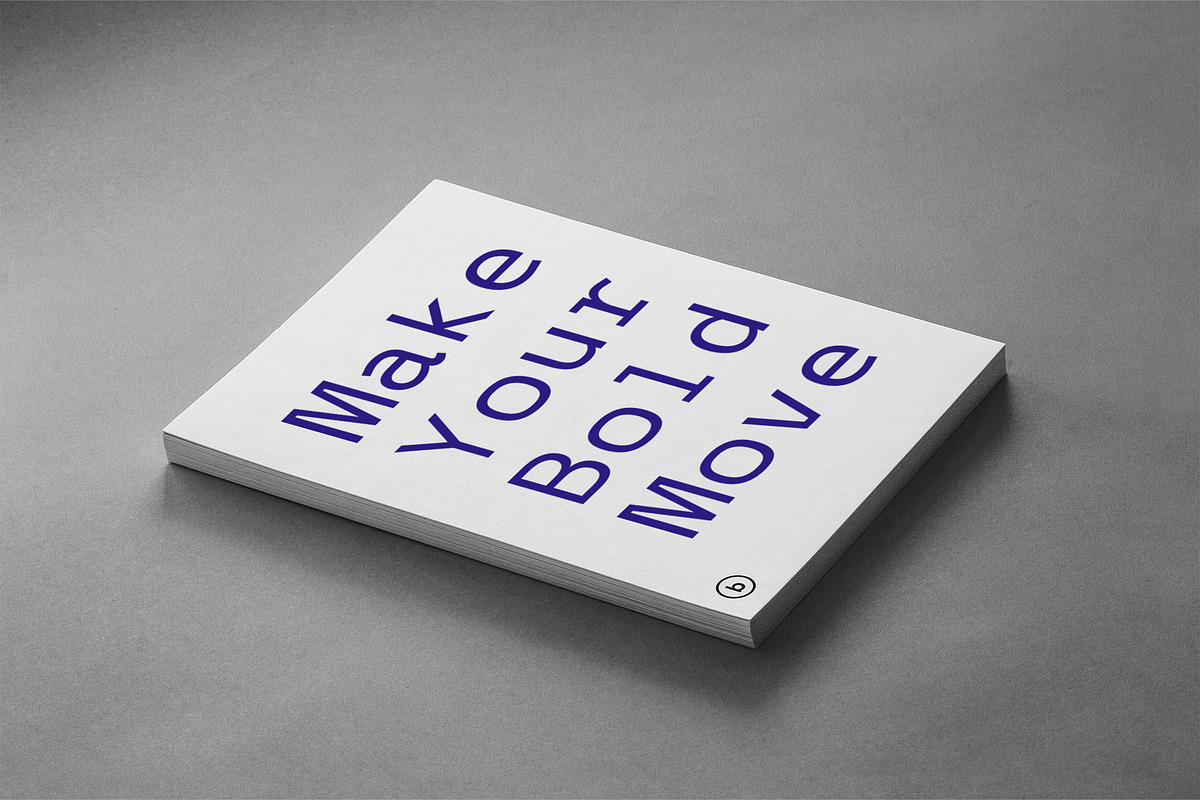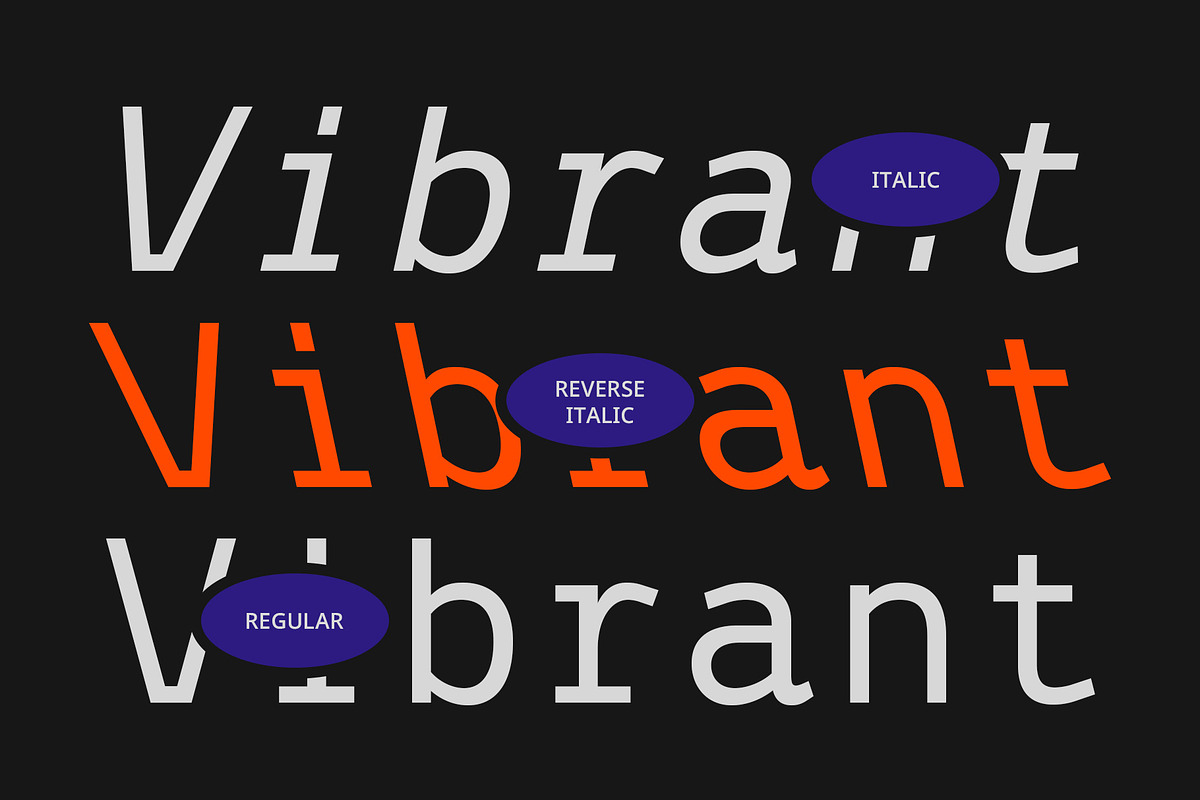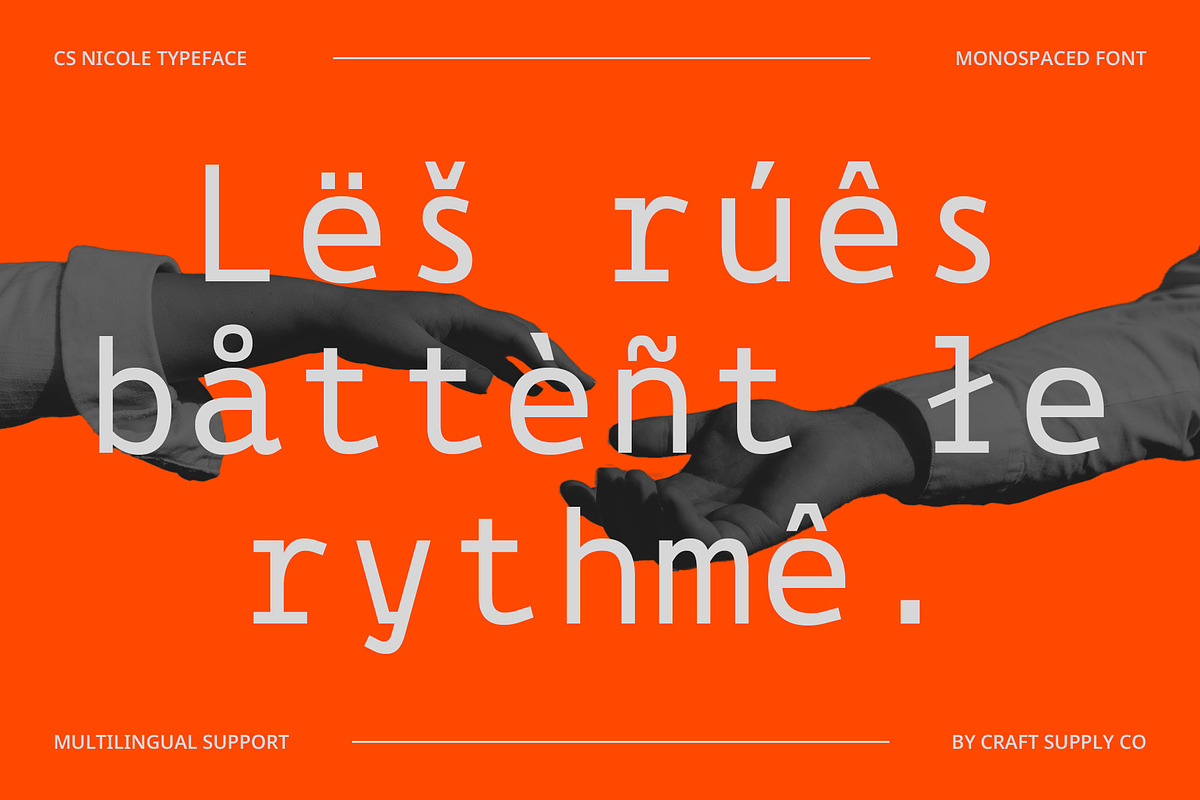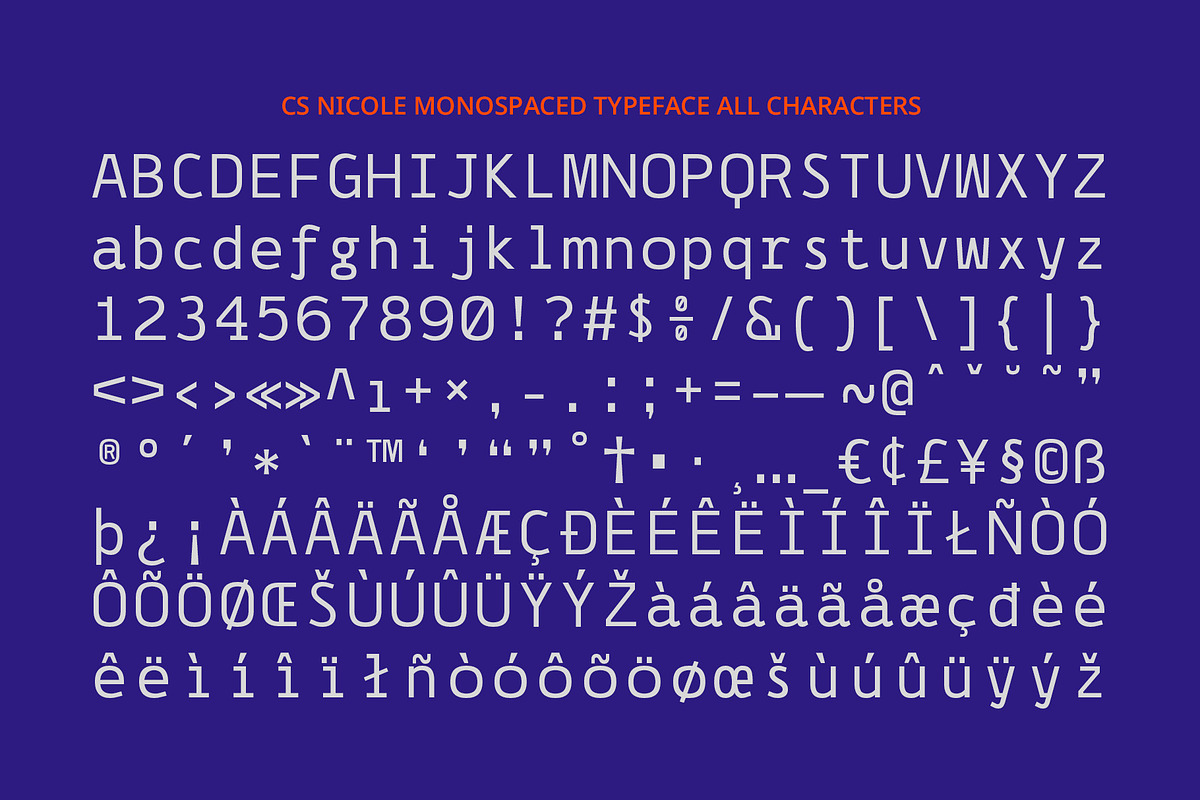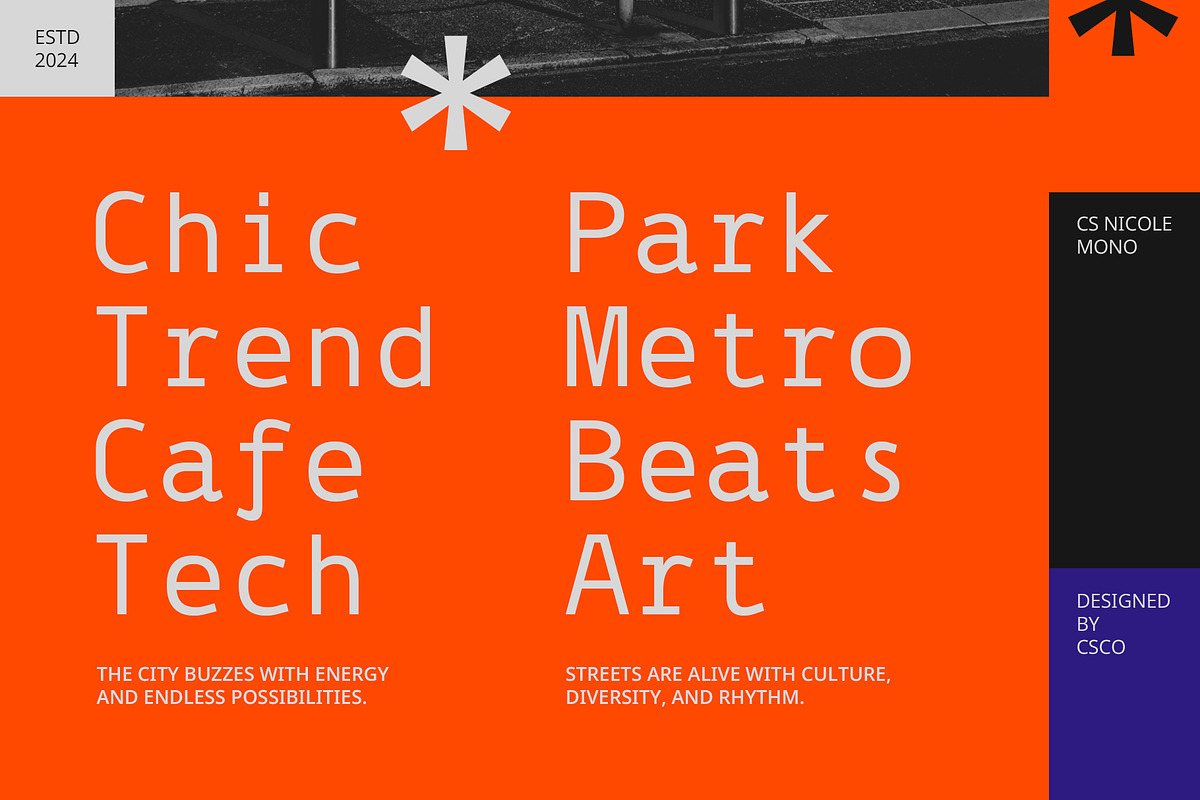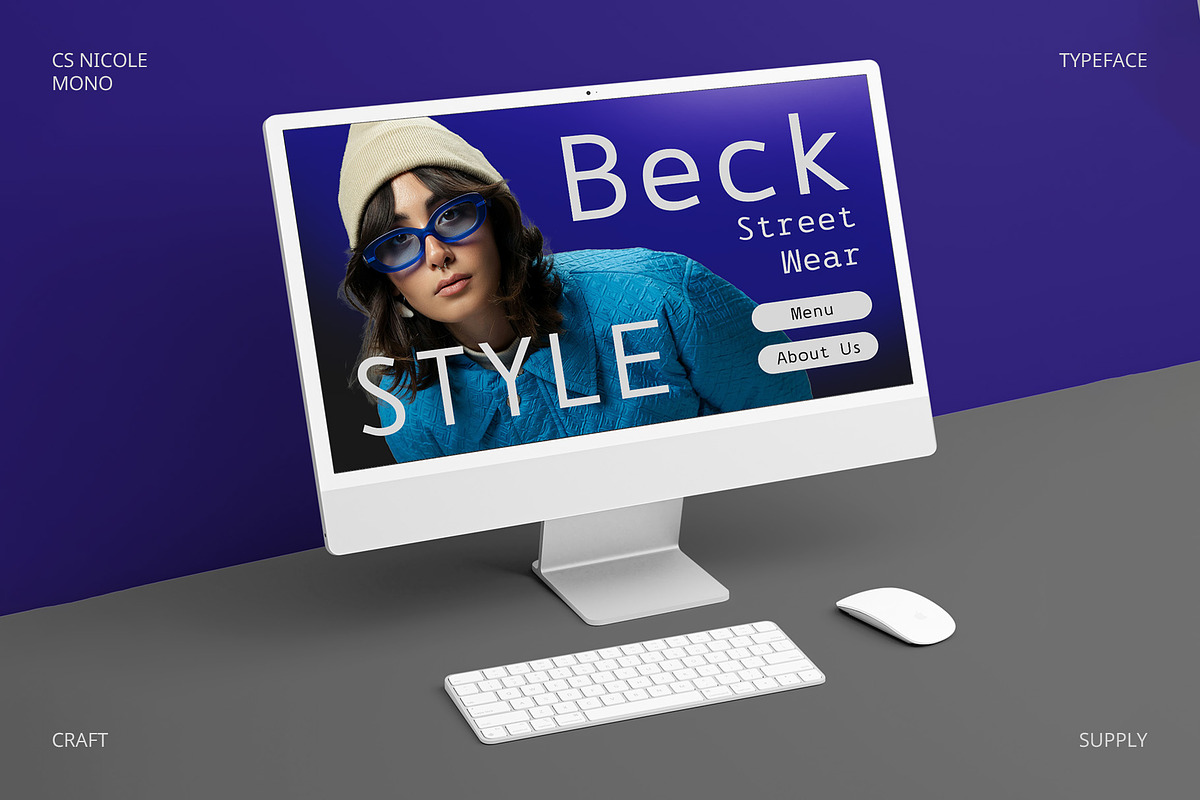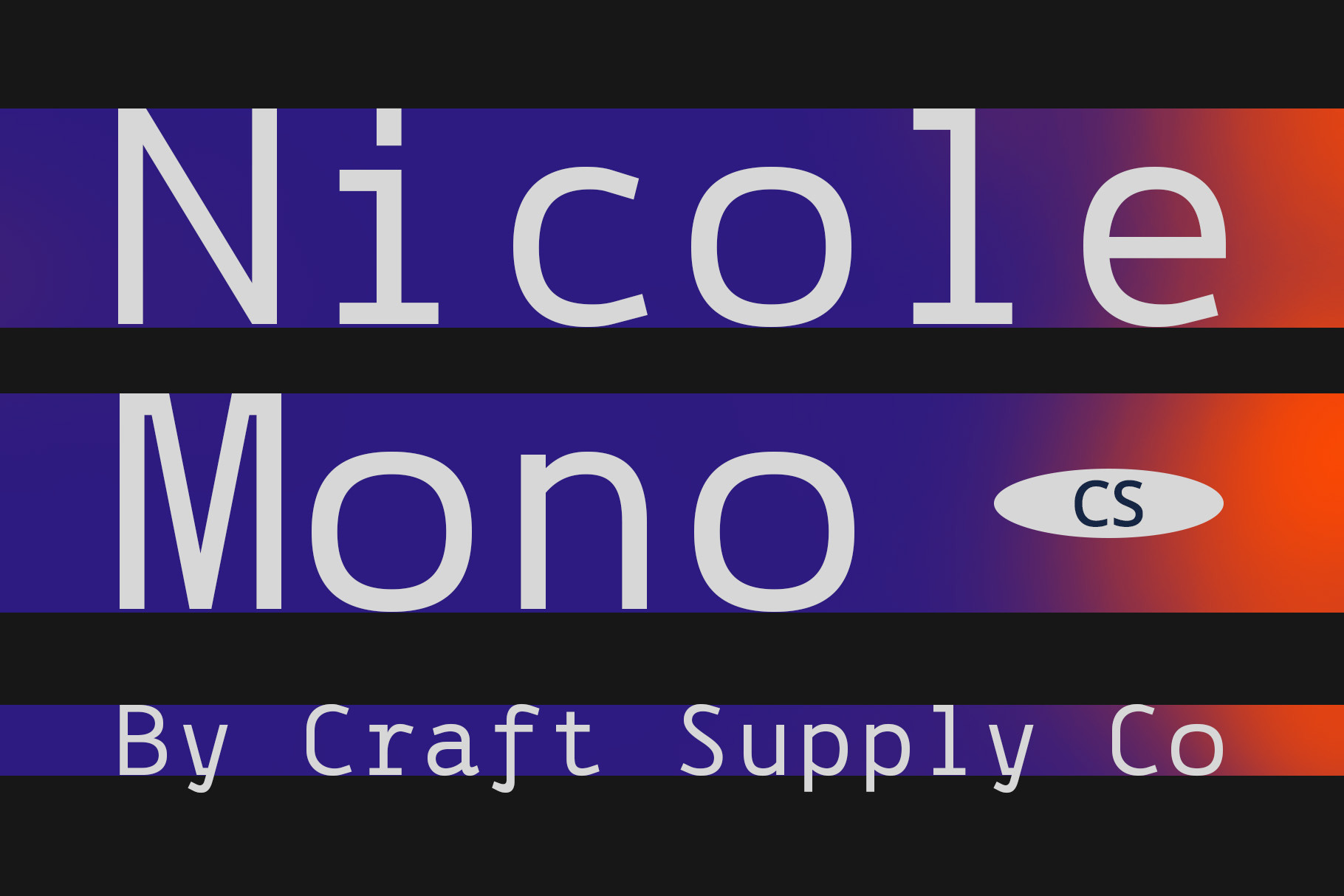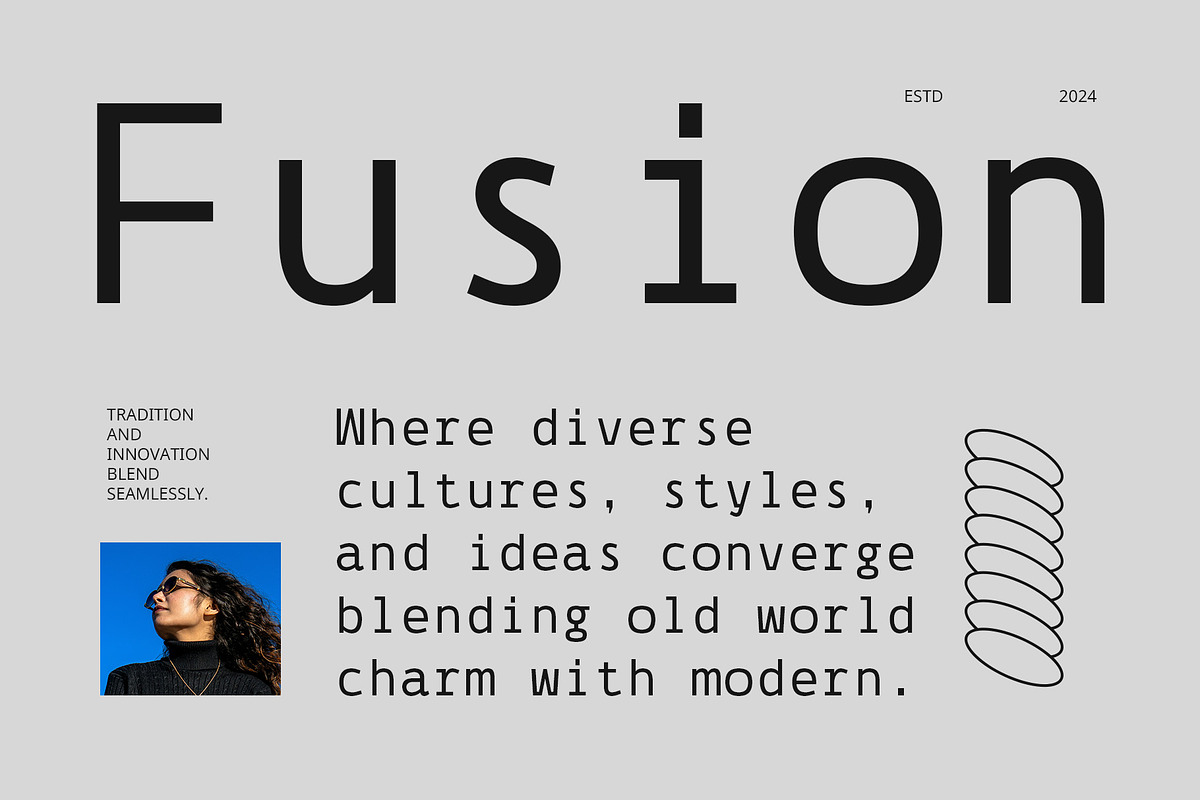
CS Nicole Mono – Monospaced Font
CS Nicole Mono – Monospaced Font: Clean, Precise, and Professional
Modern Monospaced Sans Serif with Geometric Shapes CS Nicole Mono is a modern monospaced sans serif font that blends geometric precision with sleek, contemporary design. Its uniform letter spacing and clean, straight lines create a highly legible and structured appearance, making it ideal for projects that require clarity and attention to detail. Whether it’s used in coding environments, technical documents, or corporate branding, CS Nicole Mono delivers both functionality and modern style with ease.
Optimized for Clarity and Readability Designed for maximum legibility, CS Nicole Mono ensures each character occupies the same amount of horizontal space, promoting easy reading and visual consistency. Its geometric shapes contribute to a clean and minimalistic aesthetic, while its monospacing enhances organization, making it perfect for environments like programming, data entry, and technical work where precision is key.
Perfect for Technical, Corporate, and Digital Projects CS Nicole Mono excels in any project that requires a sharp, modern, and organized look. Its precise design makes it an excellent choice for coding interfaces, technical specifications, product manuals, and corporate branding. The clarity and consistency of the font also make it suitable for digital applications, such as websites and apps, where readability is paramount.